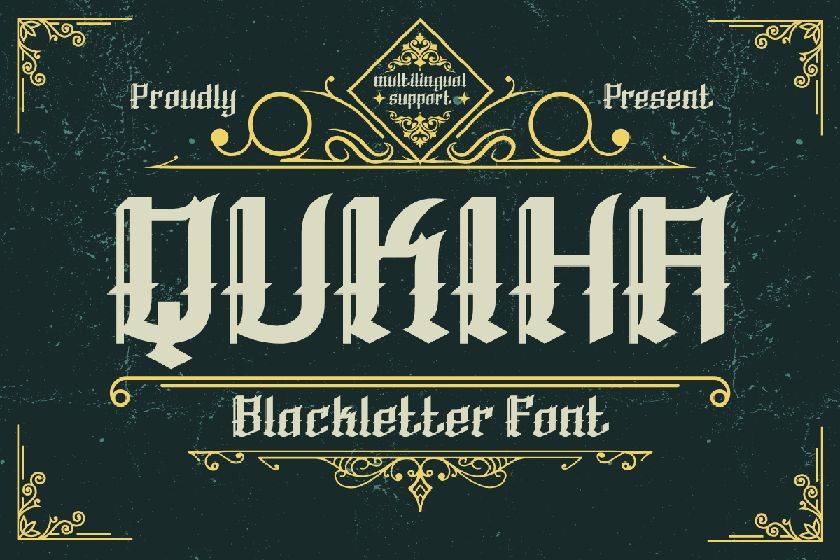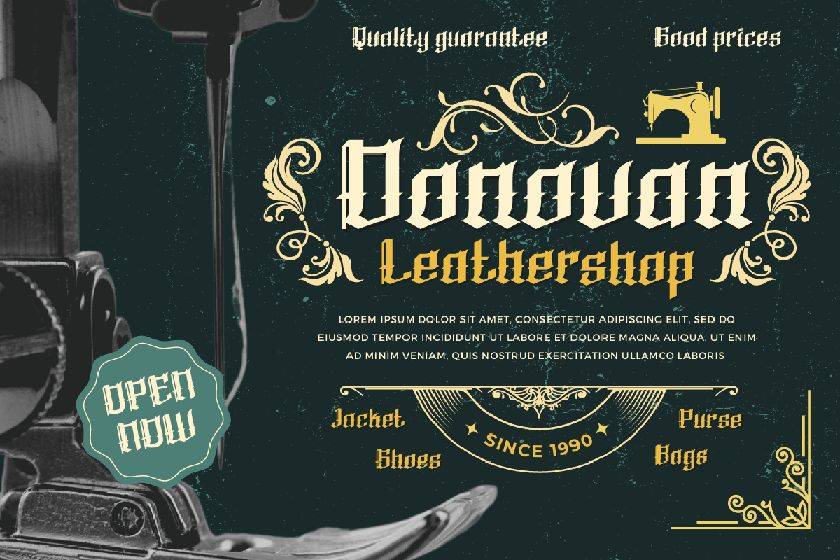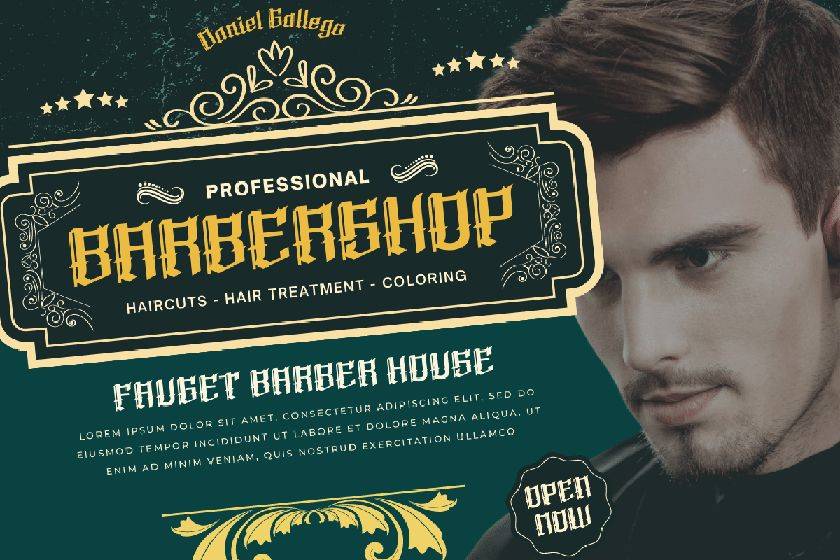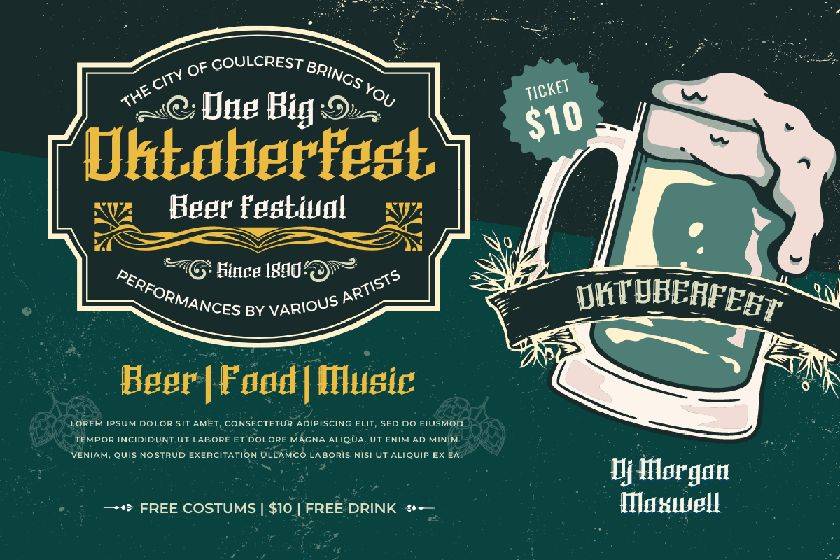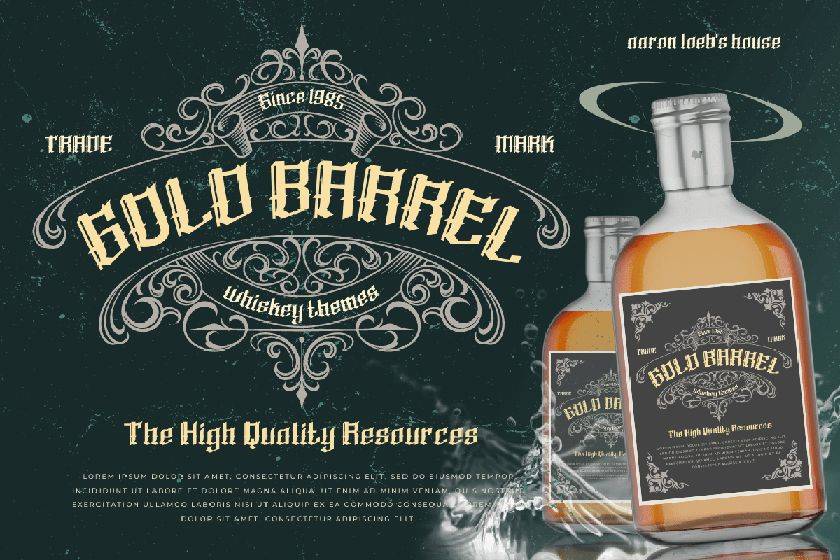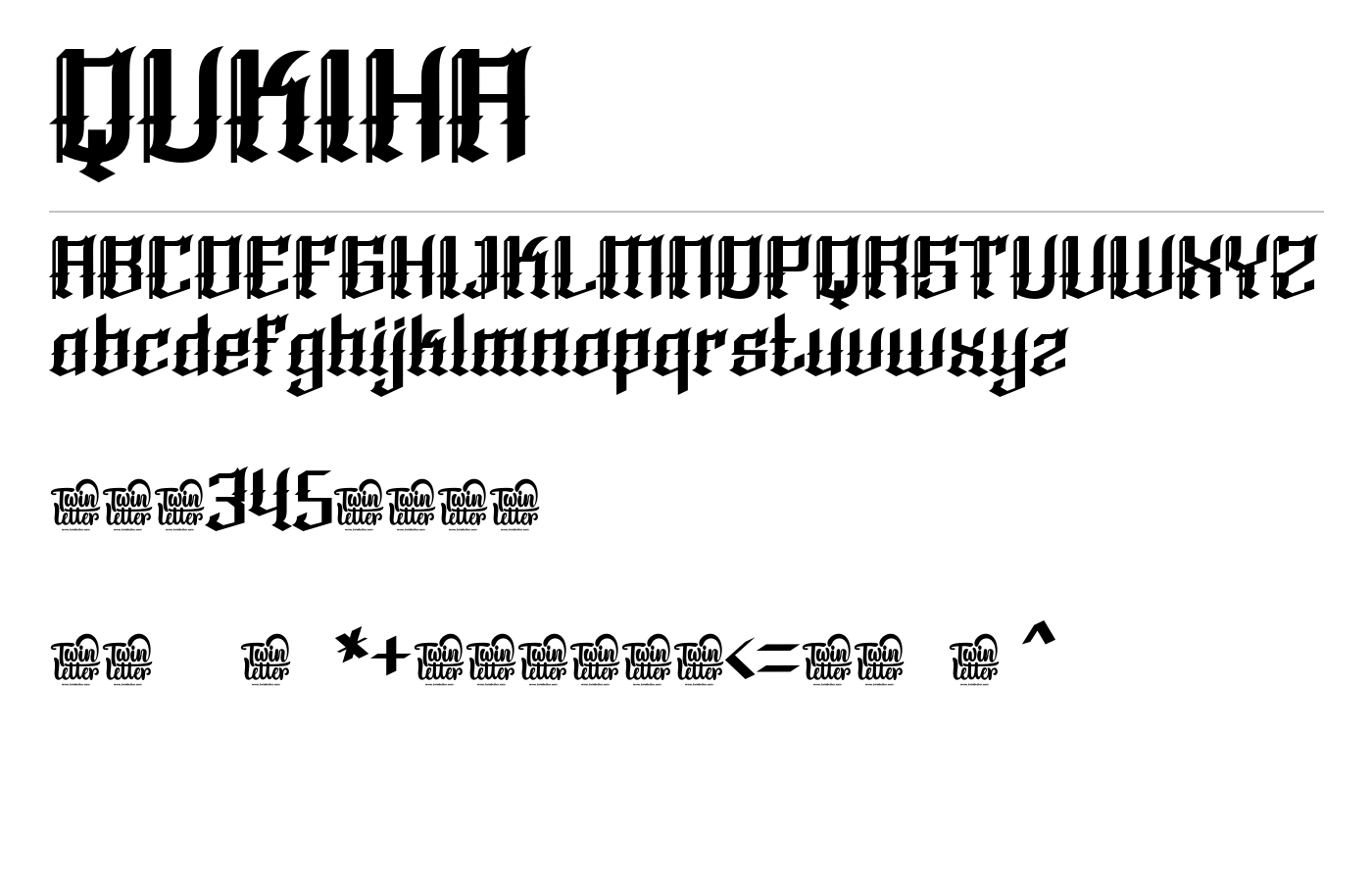
Qukiha is a bold, blackletter-inspired font with sharp, angular strokes and a condensed, tall structure that gives it a strong Gothic character. Its high contrast and distinctive letterforms with pointed serifs create a dramatic, vintage feel, making it ideal for eye-catching headlines, logos, and designs that require a bold, medieval or tattoo-style aesthetic. This font works best when used to convey power, tradition, and a unique, edgy personality.
Qukiha Font
About Qukiha Font